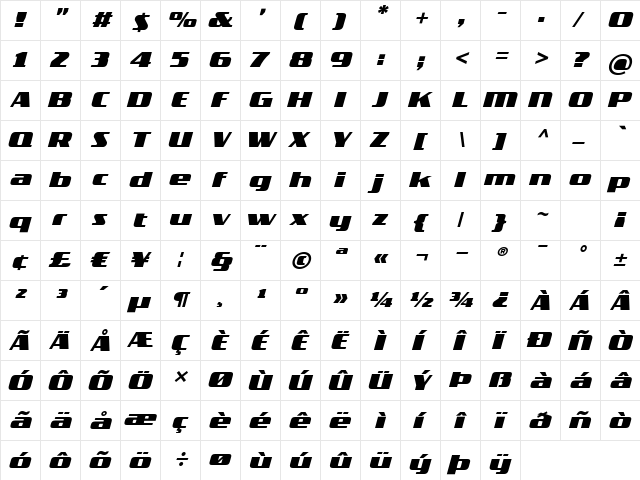
Trademarker Web Regular
| Designer | Critzler |
Design Context for Trademarker Web Typeface
Trademarker Web is a composed and adaptable typeface that performs quietly and consistently across a wide range of design contexts.